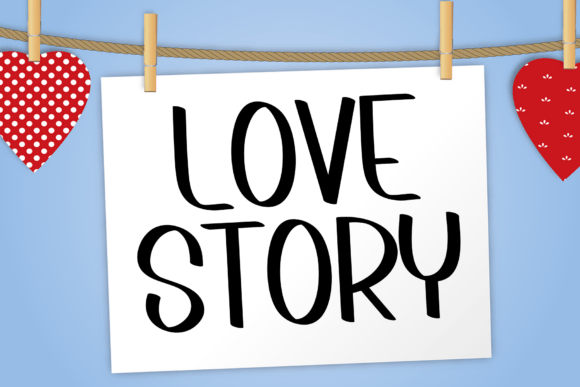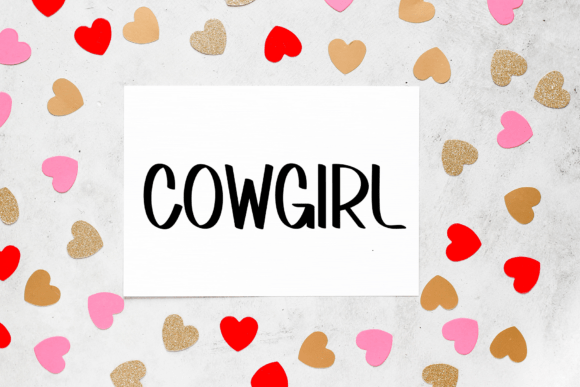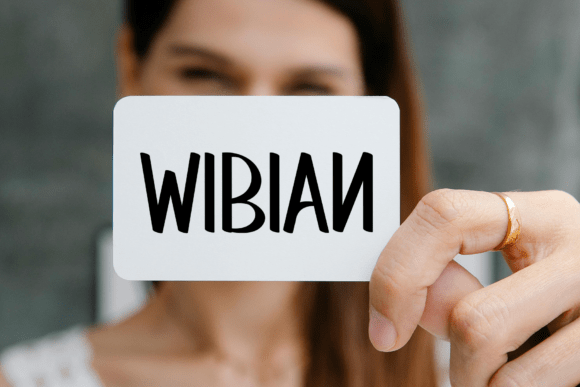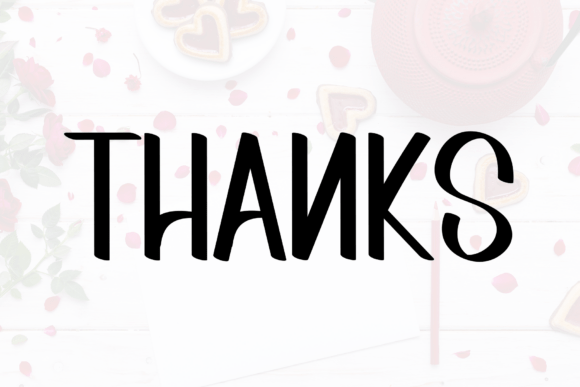
When Creativity Strikes
Have you ever been in the middle of brainstorming, and suddenly a design idea hits you like a ton of bricks? You quickly grab a marker, scribble down your concept, and voilà – your design is born. That’s exactly what happened when the creators of Finished Font got inspired to craft a handwritten font that embodies the carefree spirit of a marker-drawn design.
Finished Font is a beautiful, handwritten typeface that perfectly captures the essence of a casual yet luxurious aesthetic. Its relaxed and sporty feel makes it an ideal choice for branding, logos, wedding supplies, greeting cards, and more. Whether you’re a designer looking to add a personal touch to your projects or a business owner seeking to elevate your brand’s image, Finished Font is a valuable asset that’s sure to make your designs stand out.
Finished Font Key Features
- Unique Character Set: Finished Font features a comprehensive character set, including over 800 glyphs, including Latin, Cyrillic, and Greek alphabets, as well as a wide range of punctuation and symbol characters.
- Advanced Typography: Finished Font includes advanced typographic features, such as ligatures, fractions, and ordinals, allowing for precise control over text layout and design.
- Customizable: Finished Font is highly customizable, with a wide range of OpenType features, including stylistic sets, contextual alternates, and swashes, allowing designers to create unique and personalized typography.
- Optimized for Digital Use: Finished Font is optimized for digital use, with carefully crafted pixel-perfect rendering at various resolutions and sizes, ensuring a consistent and high-quality visual experience across different devices and platforms.
Designer Review: Finished Font
As a designer, I’ve had the chance to work with a wide variety of fonts, and I must say that Finished Font is a unique addition to my collection. ✨ One thing that really stands out about Finished Font is its versatility. It’s a modern sans-serif font that works well in both digital and print applications. I’ve used it for logos, headings, and even body text, and it always looks great.
Another thing that I appreciate about Finished Font is its legibility. It’s incredibly clear and easy to read, even at small font sizes. This makes it a great choice for digital projects where readability is crucial.
- ✨ Versatility: works well in digital and print applications
- ✨ Legibility: clear and easy to read even at small font sizes
- ✨ Modern feel: gives projects a sleek and contemporary look
- ⚠️ Limited font weights: only a few weights are available, which can limit its use in certain applications
- ⚠️ Not ideal for large body text: while it’s great for headings, it can look a bit cramped in large blocks of text
Overall, I think Finished Font is a solid choice for designers who need a modern and versatile font. While it may have some limitations, its strengths far outweigh its weaknesses. I’d definitely recommend it to anyone looking for a great sans-serif font.
Practical Application Guide for Finished Font
Tips for Getting the Most Out of Finished Font
Use Finished Font for titles, headings, and other large text elements to create a clean and modern design.
Pair Finished Font with other sans-serif fonts for a balanced and harmonious design.
Experiment with different font sizes, colors, and styles to create a unique and eye-catching design.
Finished Font is perfect for:
Brochures and flyers
Business cards and resumes
Presentations and reports
Websites and e-commerce platforms